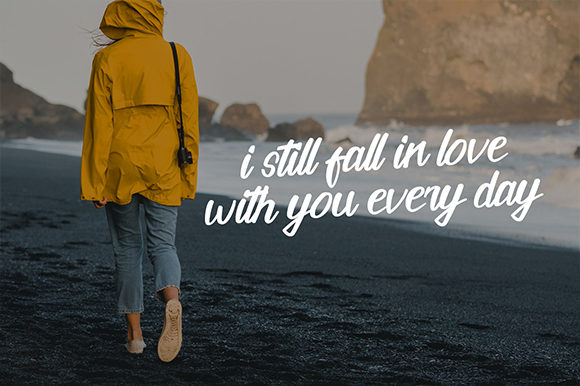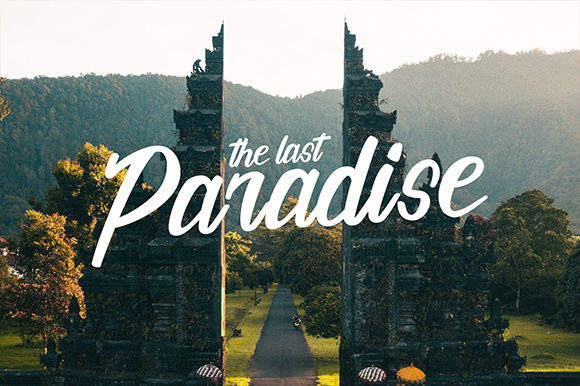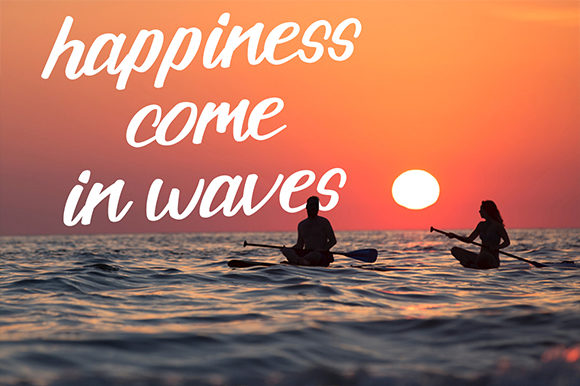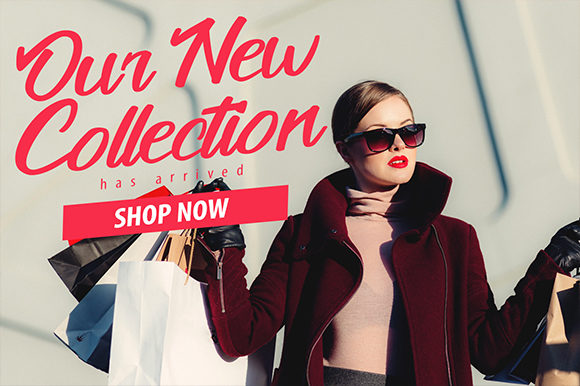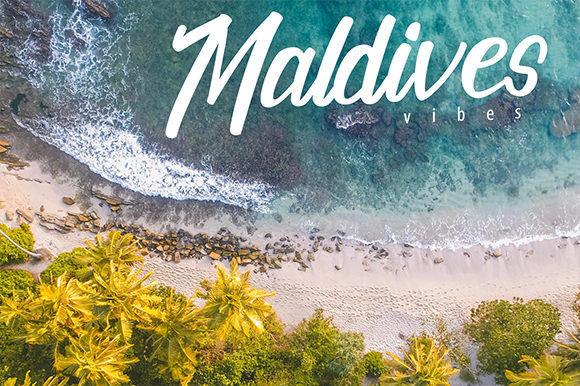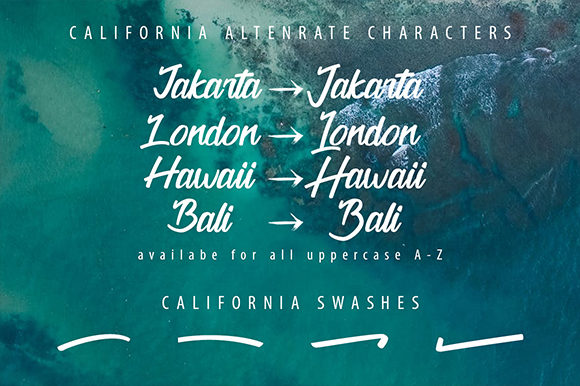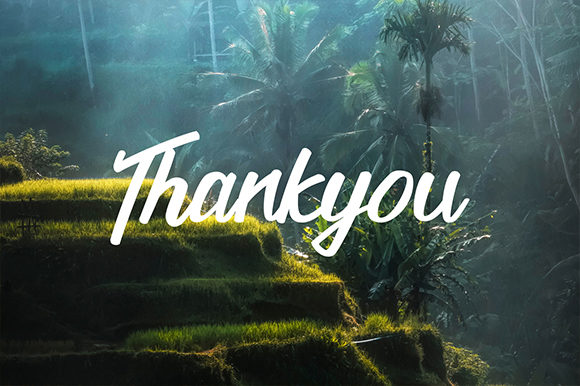
California Font
About California Font
California is a hand-lettered modern calligraphy font that celebrates all things summer. Fall in love with its timeless and friendly feel!